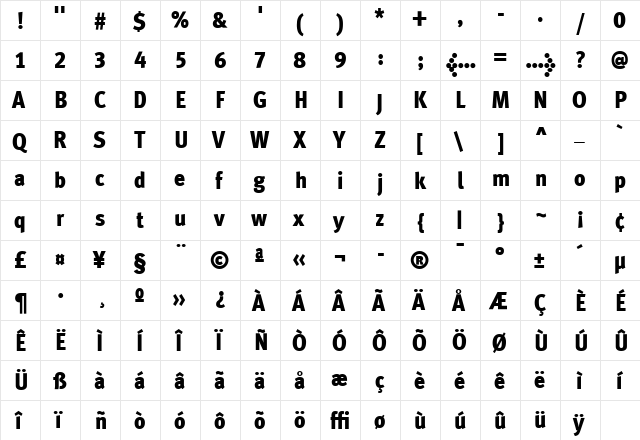
MetroMeta Black Font Preview
MetroMeta Black
MetroMeta Black Font Details
| Foundry | \ / Erik Spiekermann, MetaDesign, Typedepartment |
Design Context for MetroMeta Typeface
MetroMeta takes a measured approach to typography — its balanced proportions and neutral character make it a reliable workhorse for both digital and print work.